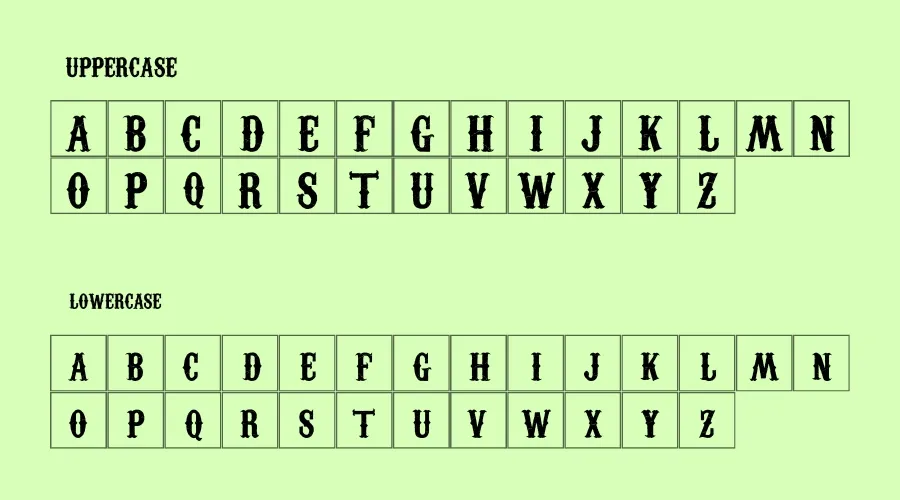
About Carnivalee Freakshow Font
Christopher Hansen designed Carnivalee Freakshow Font it is a fancy style. It is the most well-known typeface used by web designers and graphic artists. It has a stylish, contemporary style and creates unique designs.
The usual weight is best for the main text, while it is suitable for usage in headers and headings. You may utilize the 65 distinctive glyphs in this letter-style design to produce visually outstanding project designs. Additionally, it has 218 pairs of letters that include both uppercase and small letters. You can easily combine this font with the pencil box font.
This typeface type design has been used by several well-known publications for their article texts, headers, and subheadings. With this font type design, the creative types have seen outcomes that are of a high caliber.